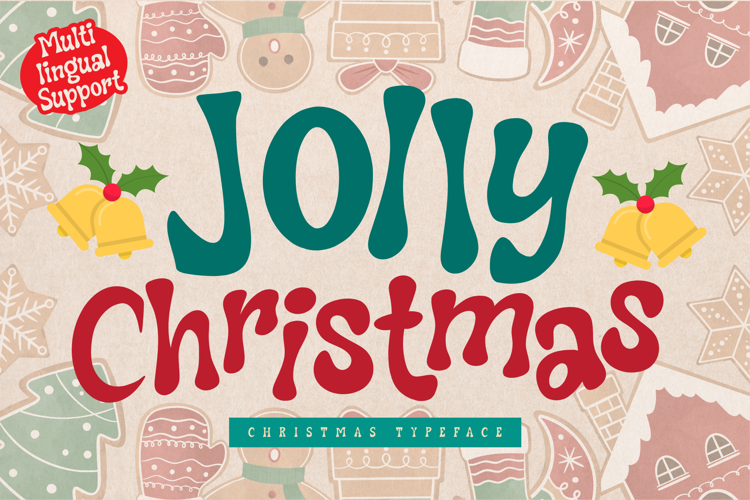
Jolly Christmas
Introducing, this is our newest product, we call this product Jolly Christmas,
It looks amazing with sweet touches and beautiful curves in each letter. Jolly Christmas fonts are perfect for: wedding invitations, fashion magazines, logos, signatures, photography, watermarks, wall displays, social media,